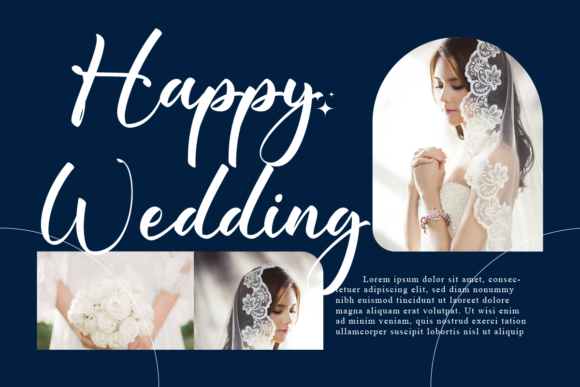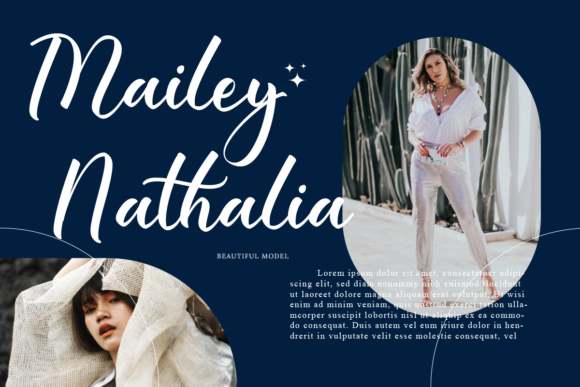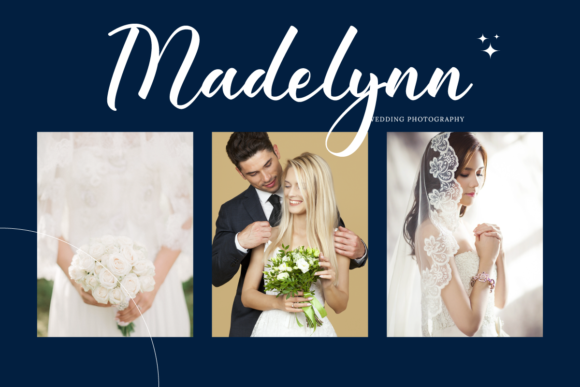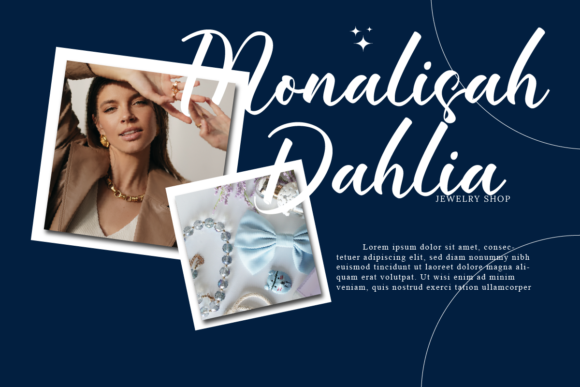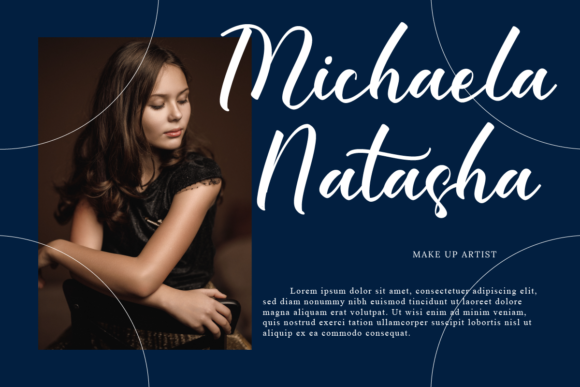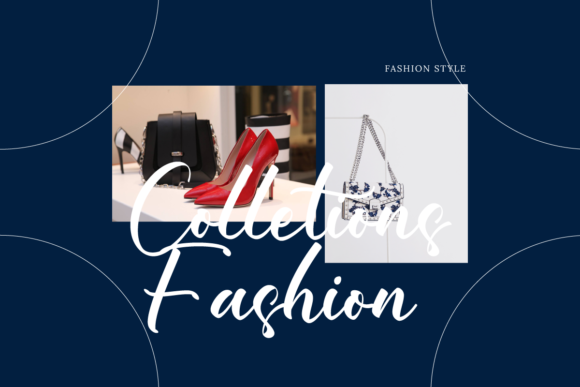
Catherine Font: Elevate Your Design with Elegance and Sophistication
In the world of typography, few fonts capture the essence of romance and luxury as effortlessly as Catherine Font. This exquisite calligraphy typeface is designed to add a touch of elegance and sophistication to any design project, making it a perfect choice for crafters, designers, and anyone looking to infuse their work with a sense of high-end style.
The Charm of Catherine Font
Catherine Font is characterized by its unique, dancing script, where characters seem to float along the baseline, creating a fluid and dynamic visual effect. This distinctive feature sets it apart from more traditional typefaces, offering a fresh and modern take on classic calligraphy. The font’s romantic and sweet aesthetic makes it an ideal choice for projects that require a personal touch, such as wedding invitations, luxury branding, and high-end product packaging.
Key Features of Catherine Font
- Romantic and Sweet Aesthetic: Catherine Font embodies a romantic and sweet charm, perfect for designs that aim to evoke emotions and create a lasting impression.
- Luxury Appeal: Its elegant and sophisticated look makes it suitable for luxury brands and high-end products, adding a touch of exclusivity and refinement.
- Versatility: This calligraphy typeface can be used across various design projects, from digital content to print materials, offering versatility and flexibility.
- Easy to Read: Despite its decorative nature, Catherine Font maintains a high level of readability, ensuring that your message is conveyed clearly and effectively.
Applications of Catherine Font
The versatility of Catherine Font makes it suitable for a wide range of applications, including:
- Wedding and Event Invitations: Add a touch of romance and elegance to your wedding or event invitations, making them truly unforgettable.
- Luxury Branding: Elevate your brand’s image with a sophisticated and luxurious typeface that reflects high-end quality and exclusivity.
- Product Packaging: Stand out in the market with beautifully designed packaging that exudes luxury and refinement.
- Digital Content: Enhance your digital platforms, such as websites and social media, with a unique and captivating typeface that draws attention and engages audiences.
Tips for Using Catherine Font Effectively
To maximize the impact of Catherine Font in your designs, consider the following tips:
- Pair with Simplicity: Balance the elegance of Catherine Font with simpler typefaces or clean backgrounds to avoid visual overload.
- Consider Size and Weight: Experiment with different sizes and weights to achieve the desired level of emphasis and hierarchy in your design.
- Play with Colors: While Catherine Font shines in its natural elegance, don’t hesitate to explore different colors that complement your brand or design theme.
Catherine Font is more than just a typeface; it’s a design statement that speaks of luxury, romance, and sophistication. Whether you’re a designer looking to elevate your projects or a crafter seeking to add a touch of elegance to your creations, Catherine Font is an excellent choice. Its unique charm, versatility, and ease of use make it a valuable addition to any design toolkit. So, why settle for ordinary when you can add a spark of luxury to your designs with Catherine Font?